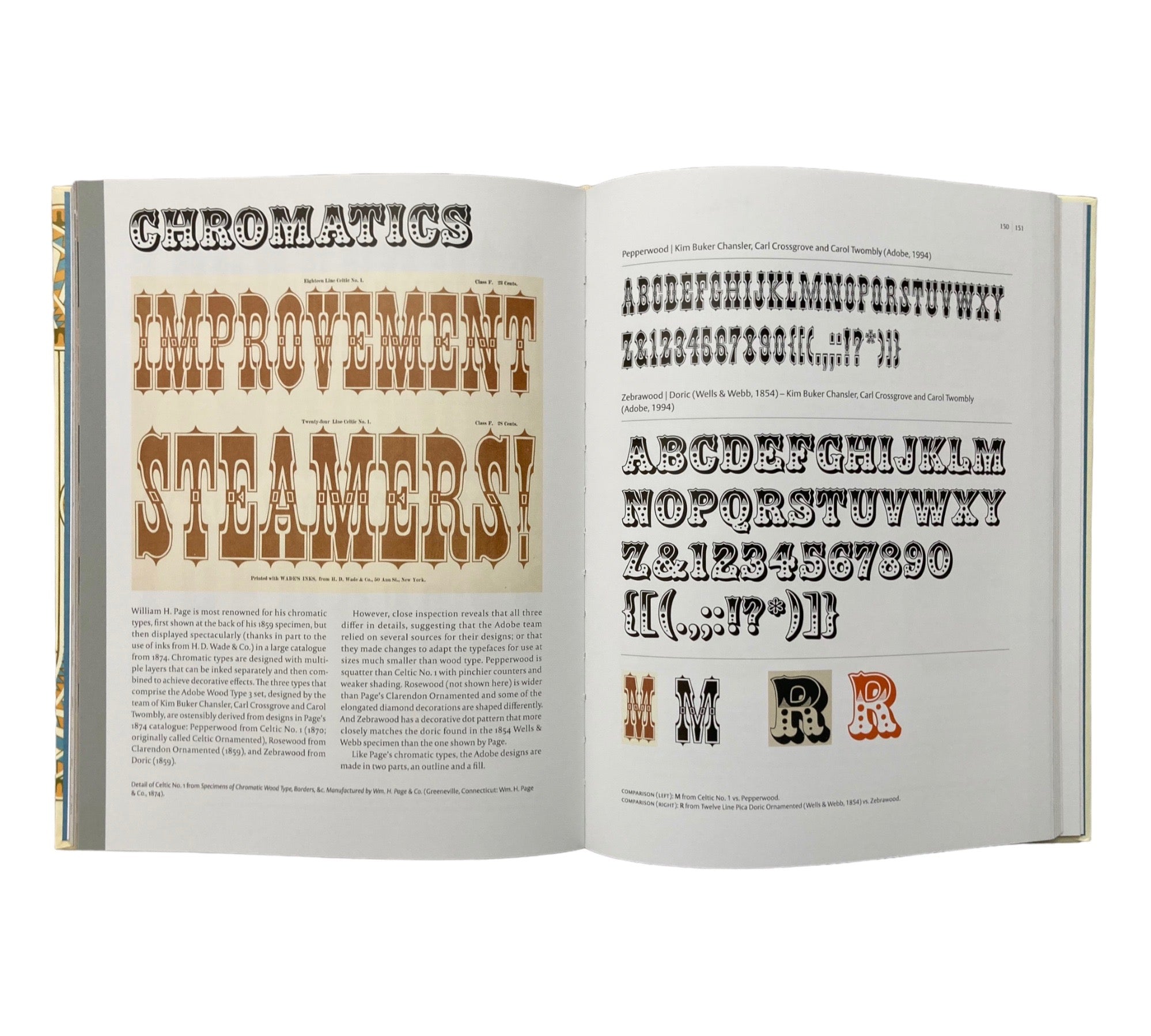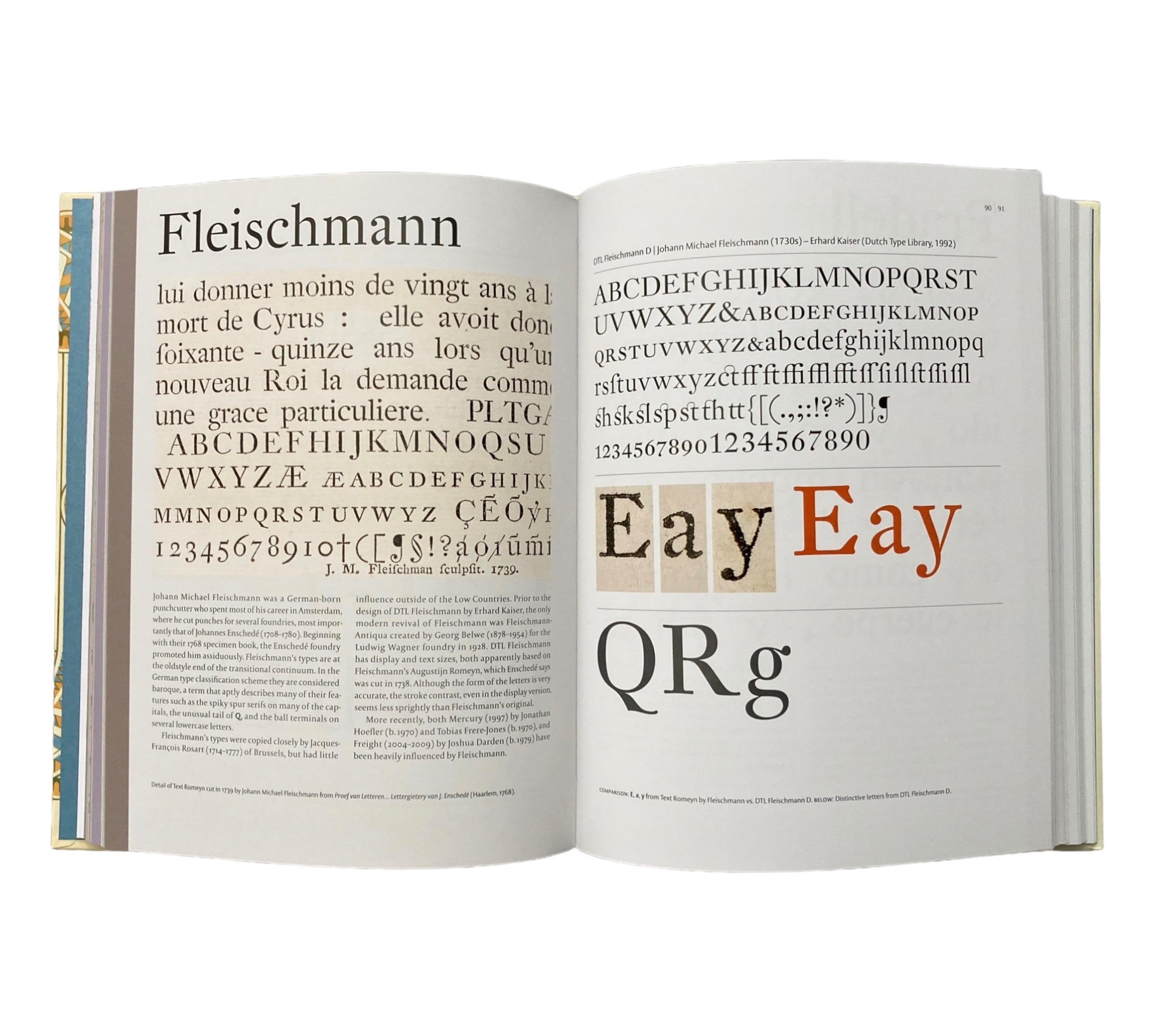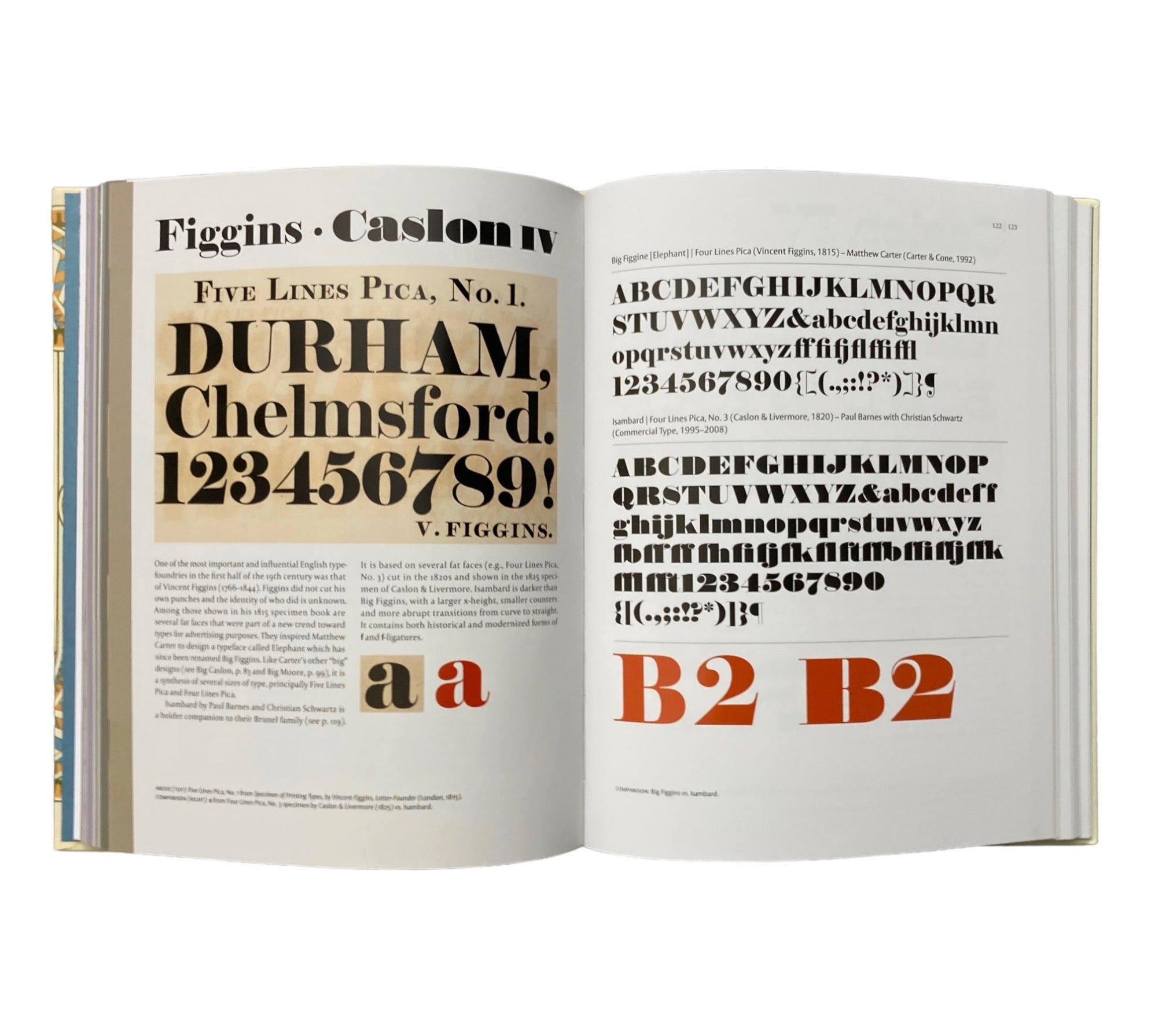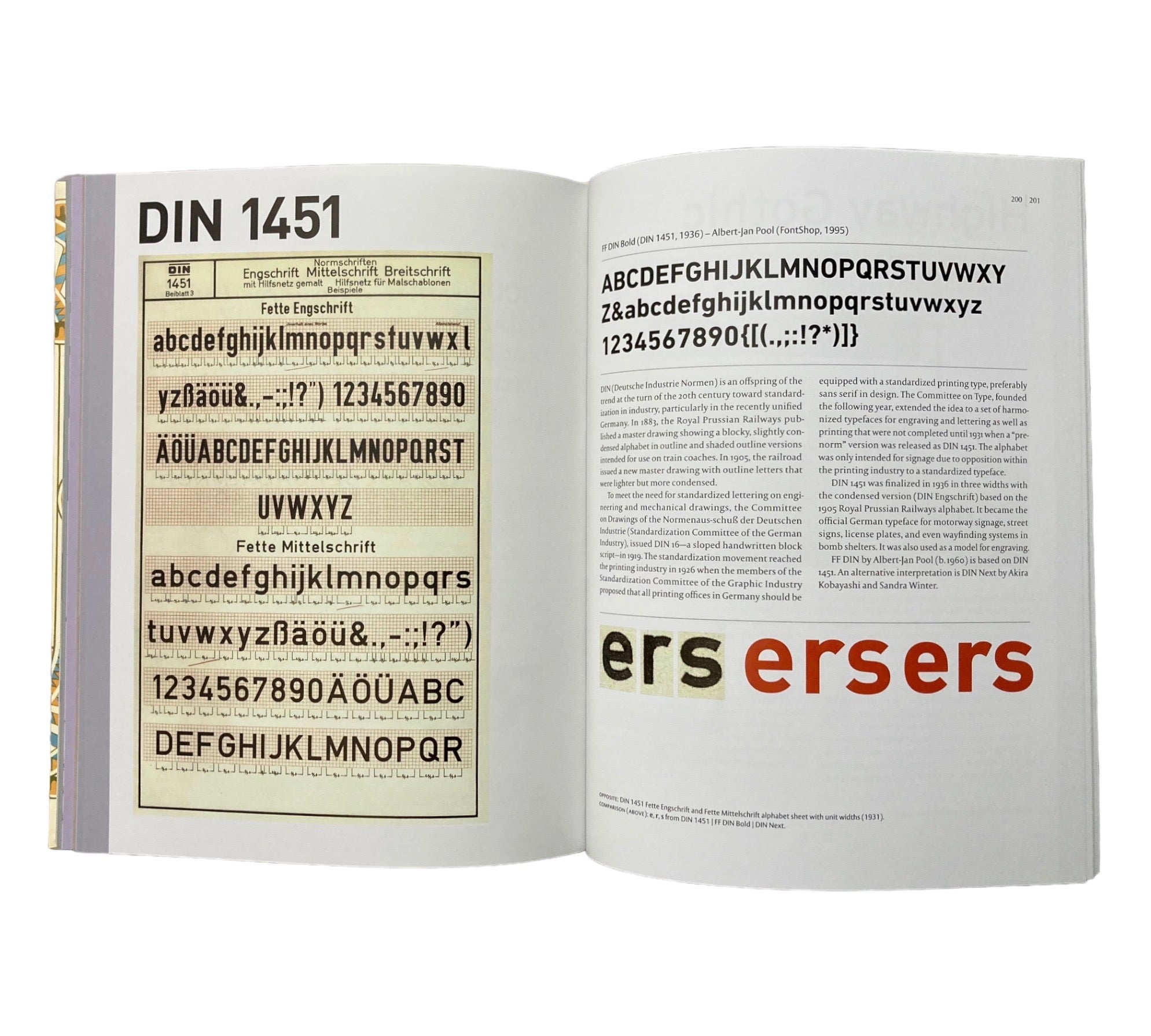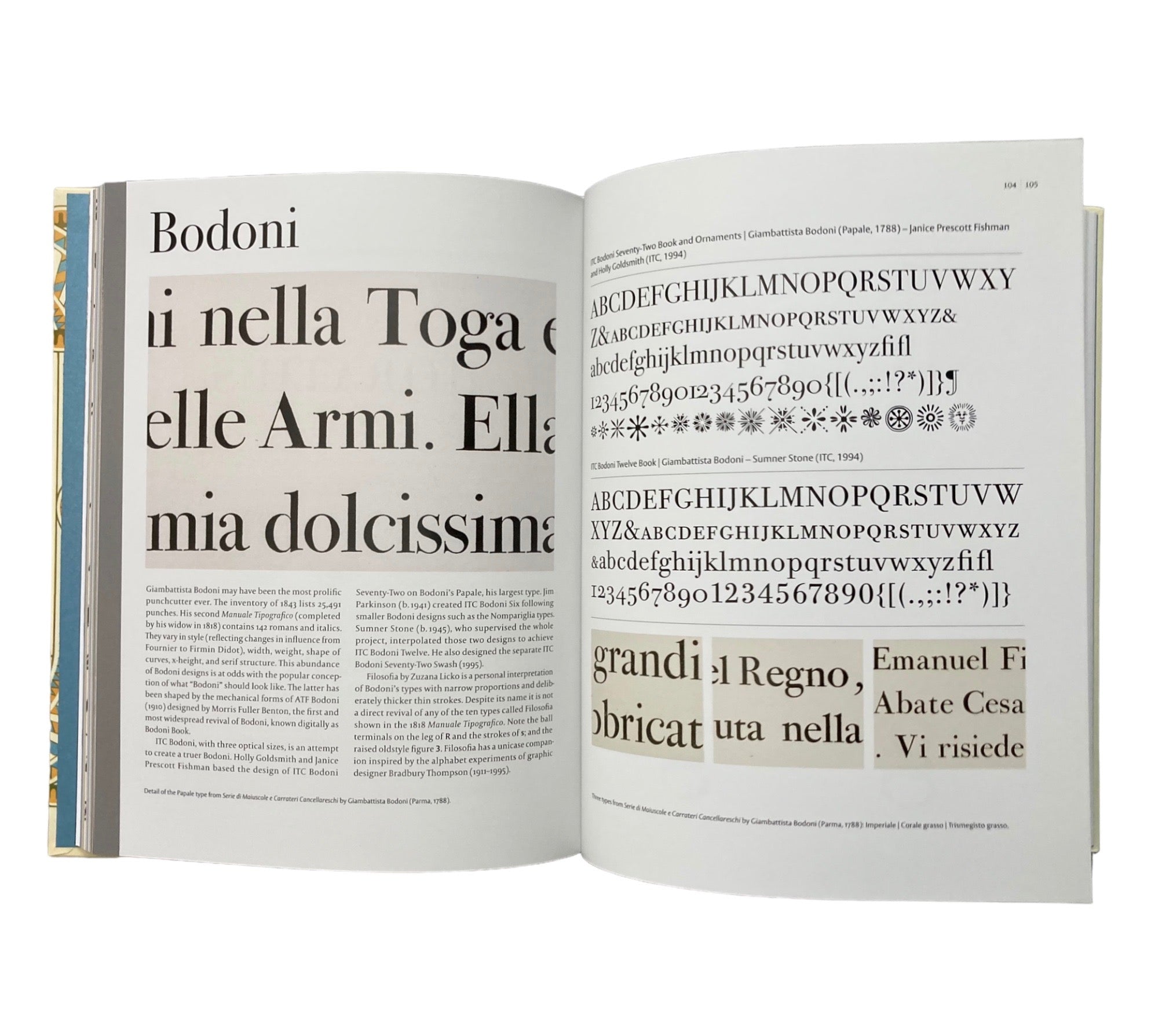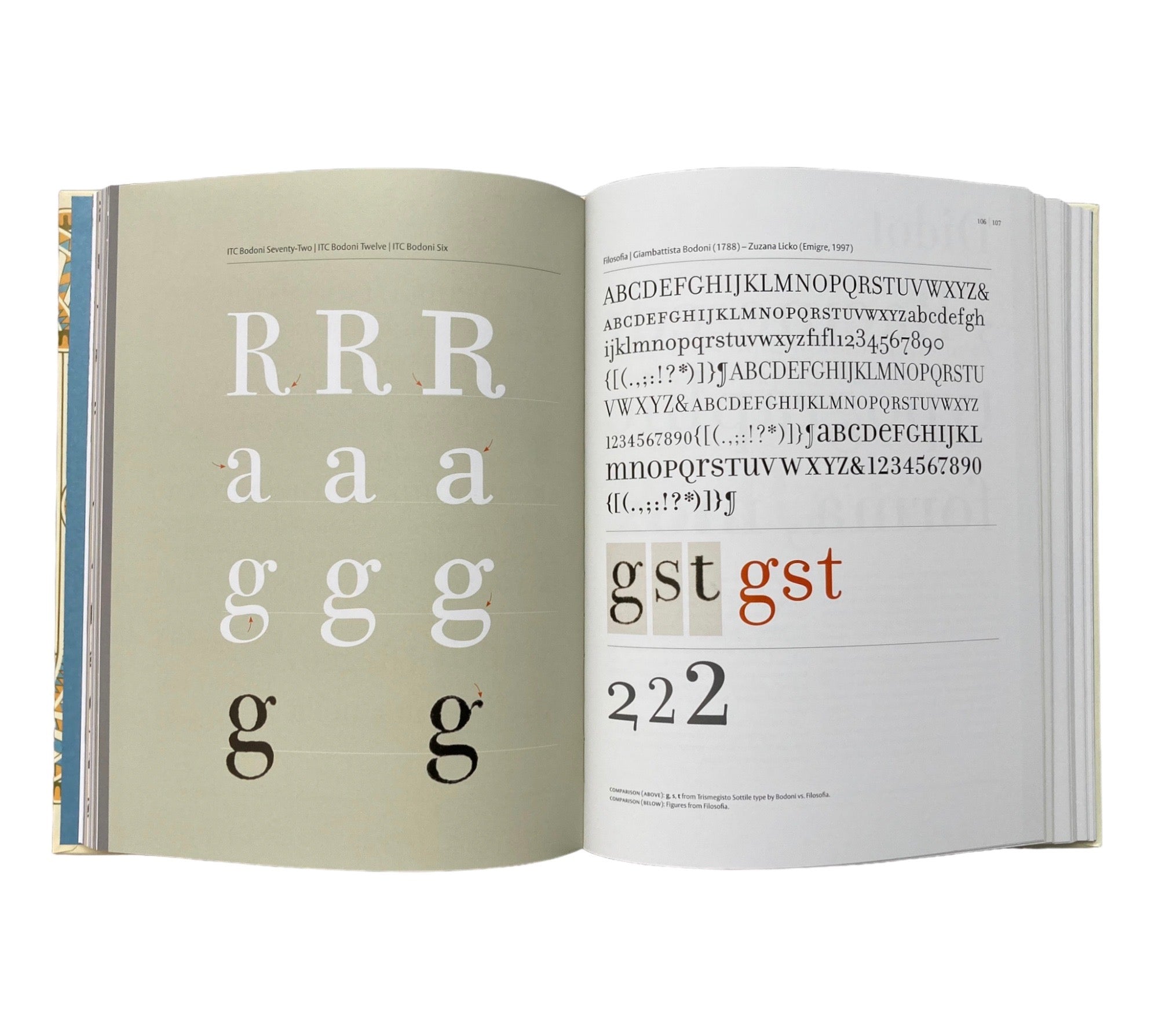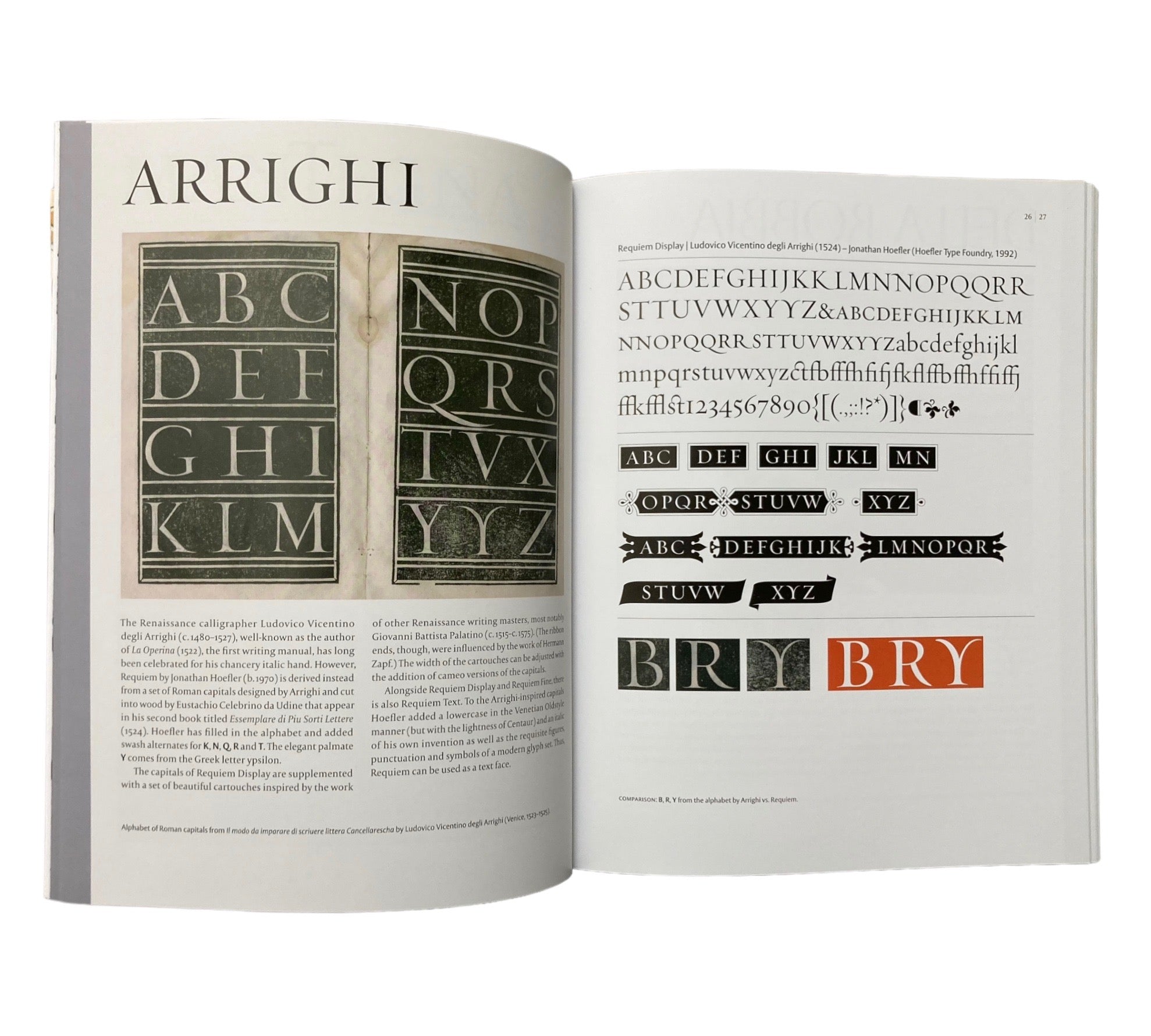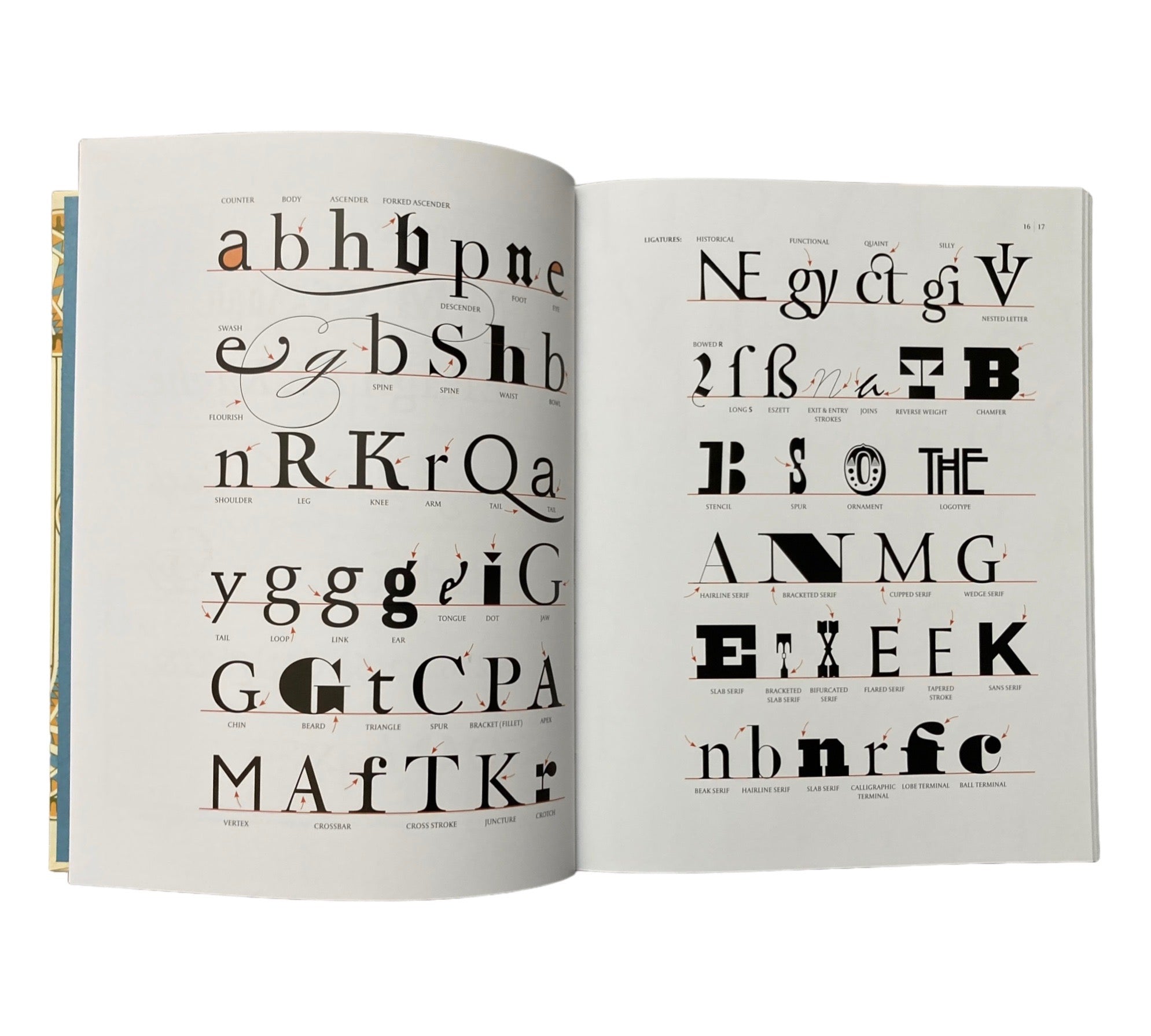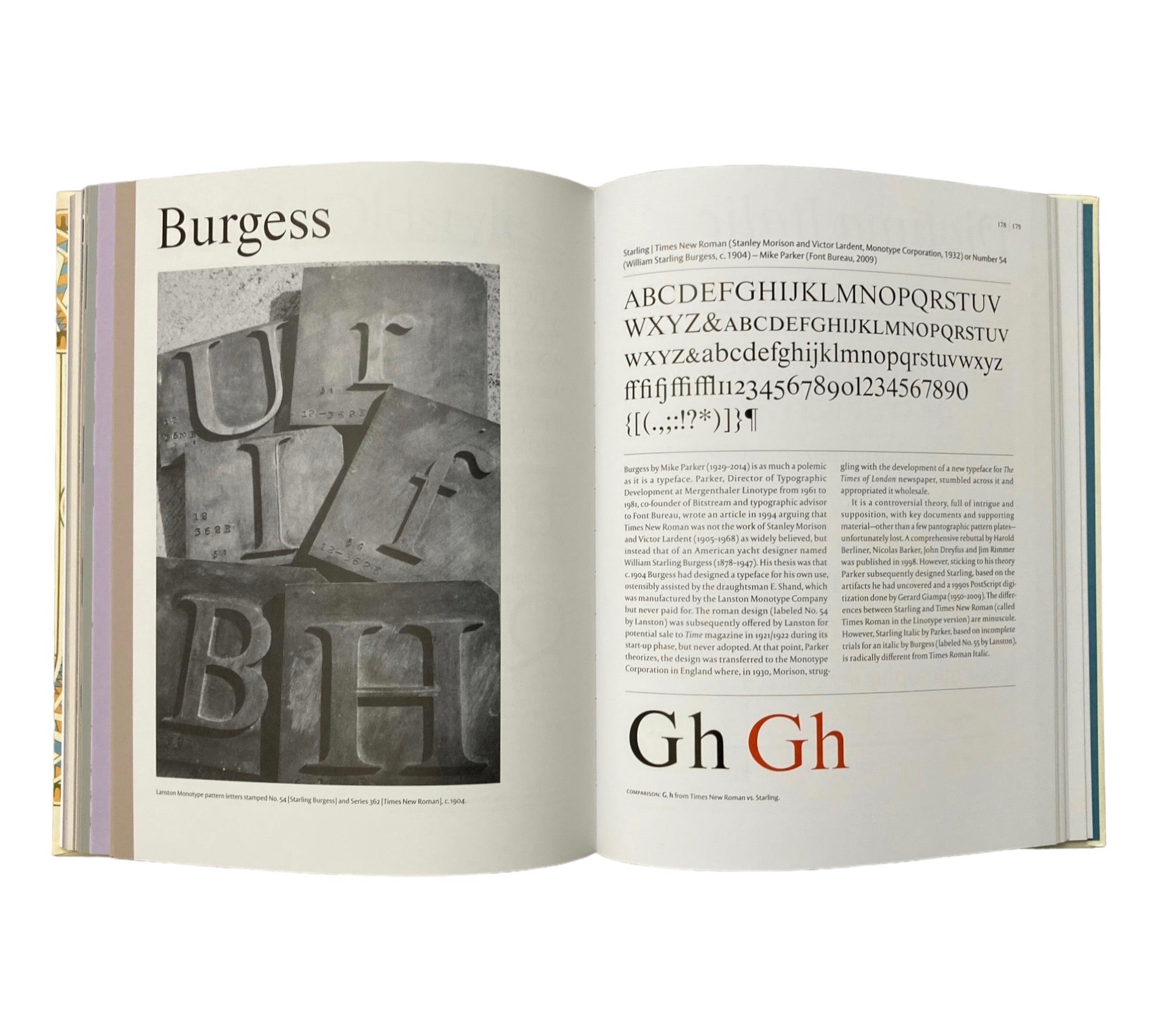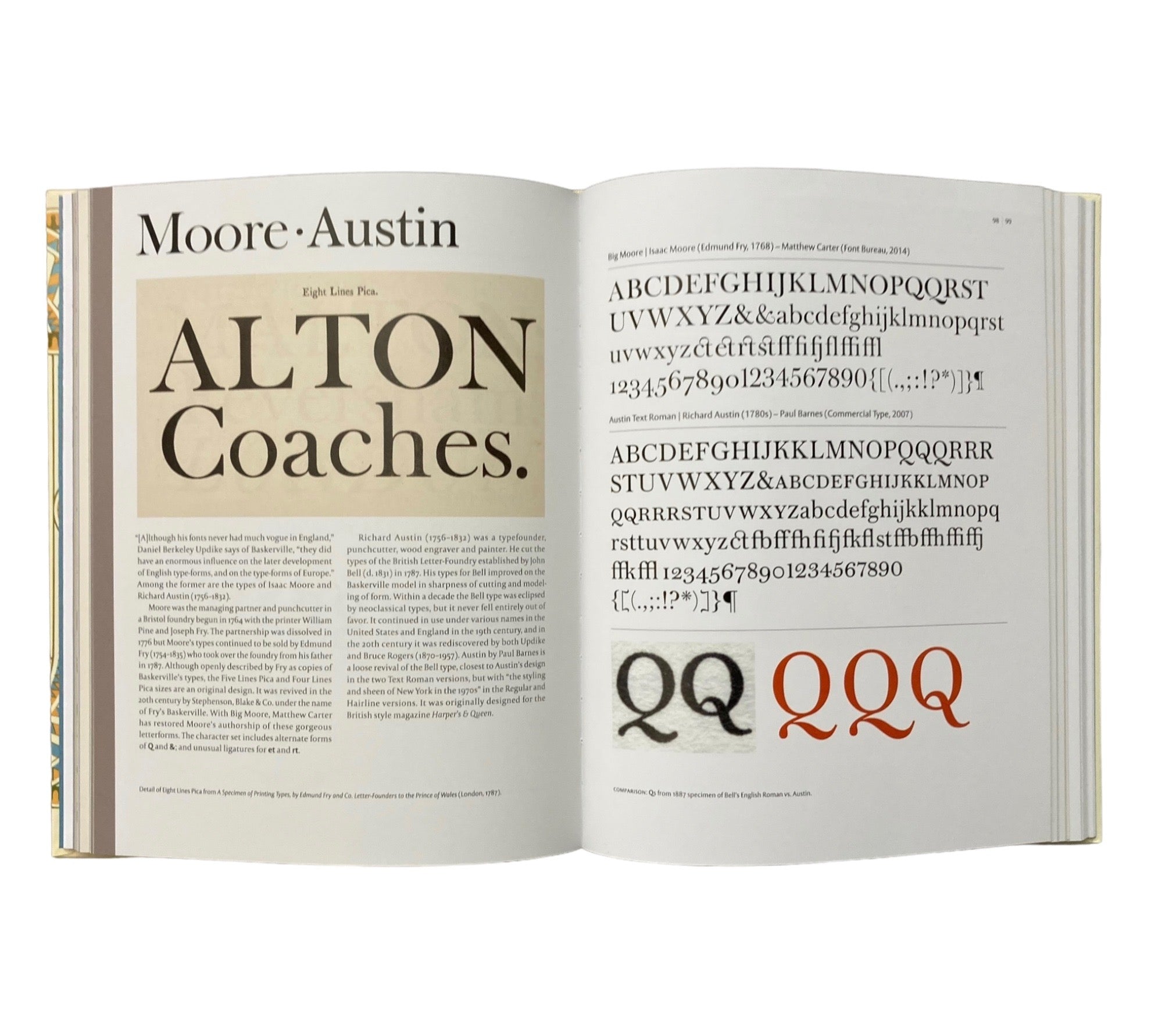
Paul Shaw
Revival Type is a collection of contemporary digital fonts with origins in the past. Examples include direct revivals of metal and wood typefaces, while others are looser interpretations of older typefaces. Among the fonts are interpretations of classic designs by Nicolas Jenson, Claude Garamont, Robert Granjon, William Caslon, John Baskerville, Giambattista Bodoni, Firmin Didot and other iconic names. Alongside them are typefaces rooted in the work of important, though lesser known, names such as Eudald Pradell, Philippe Grandjean and Richard Austin. Finally, there are updates and revisions of 20th-century classics like Palatino, Meridien, DIN, Metro and Neue Haas Grotesk (the original name of Helvetica).
Some designs are not revivals of typefaces but of letterforms, from inscriptions to calligraphic manuals to letters in posters and book jackets. Some revivals are aesthetic extensions of 20th-century typefaces that have been updated technologically. Others are actually reinterpretations or variations on typefaces from the past necessitated by having to make types that function in the 21st century and not in the distant past.